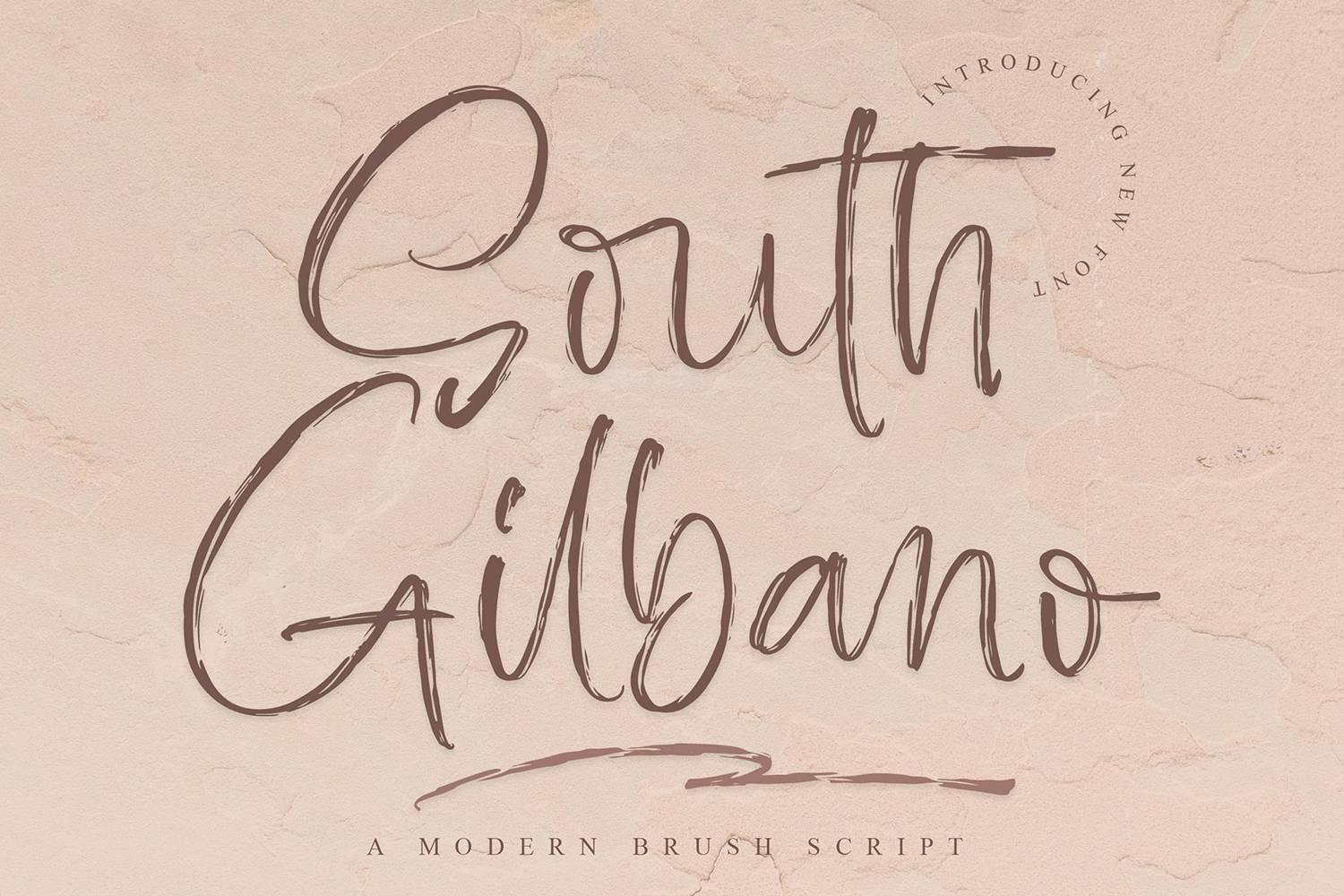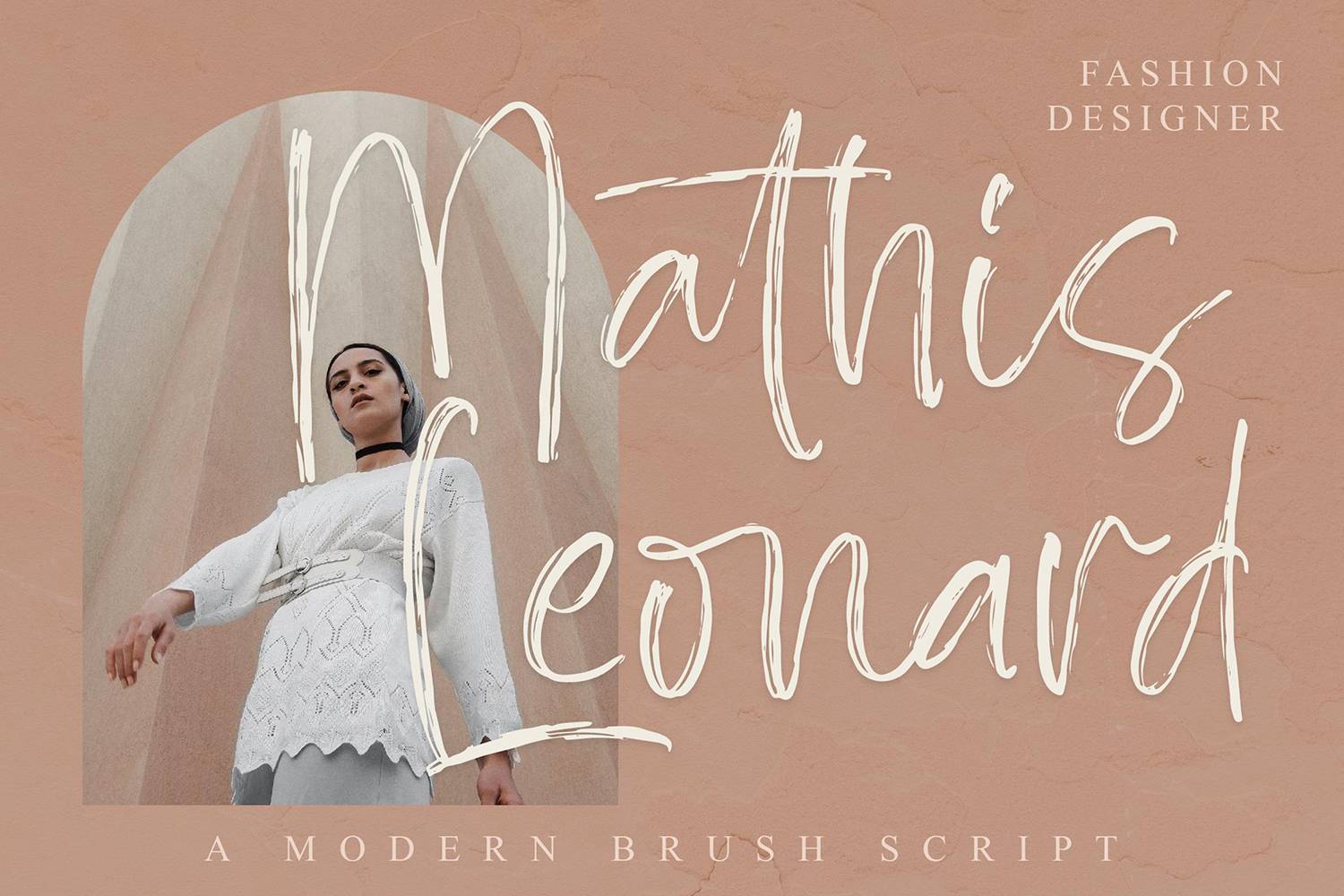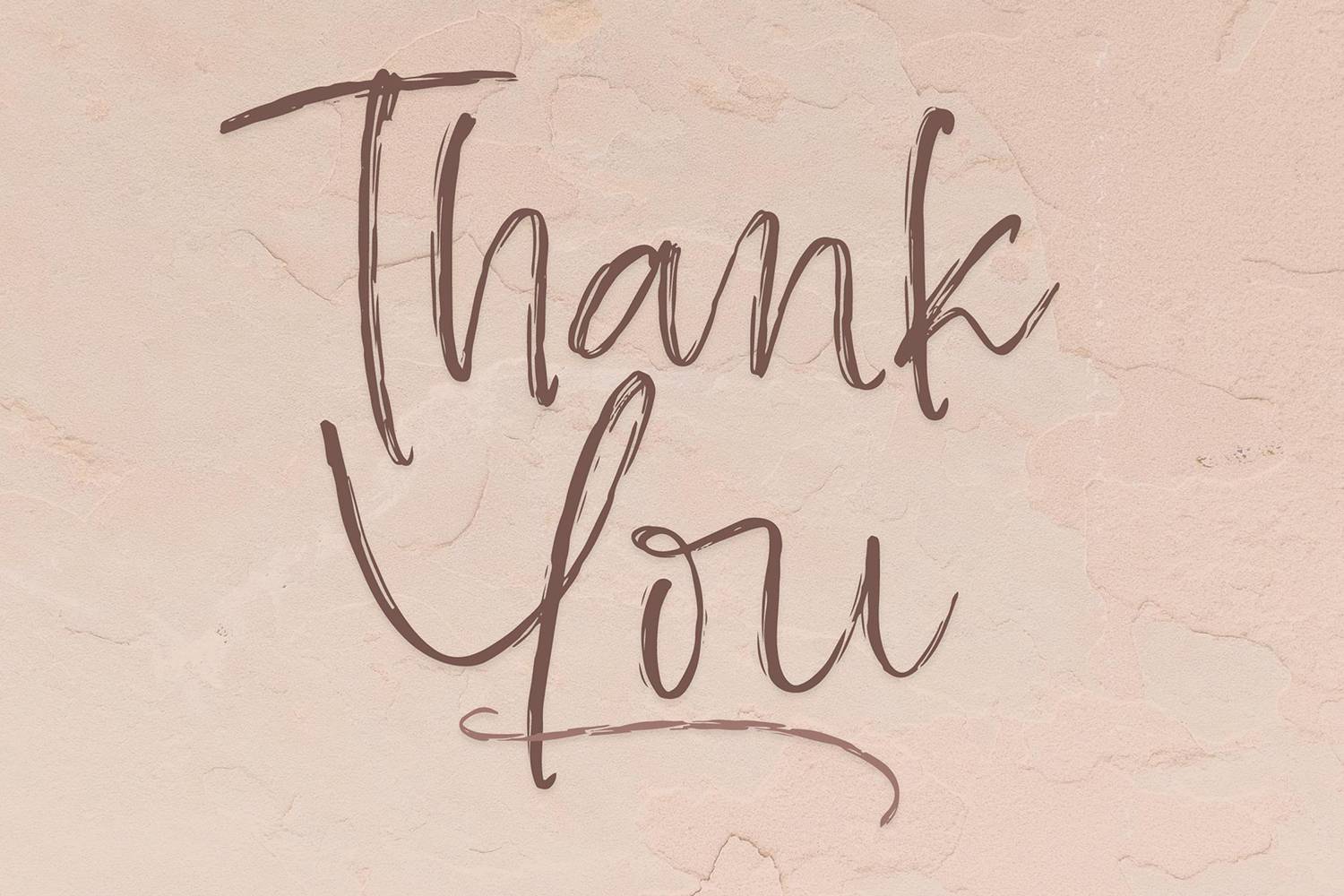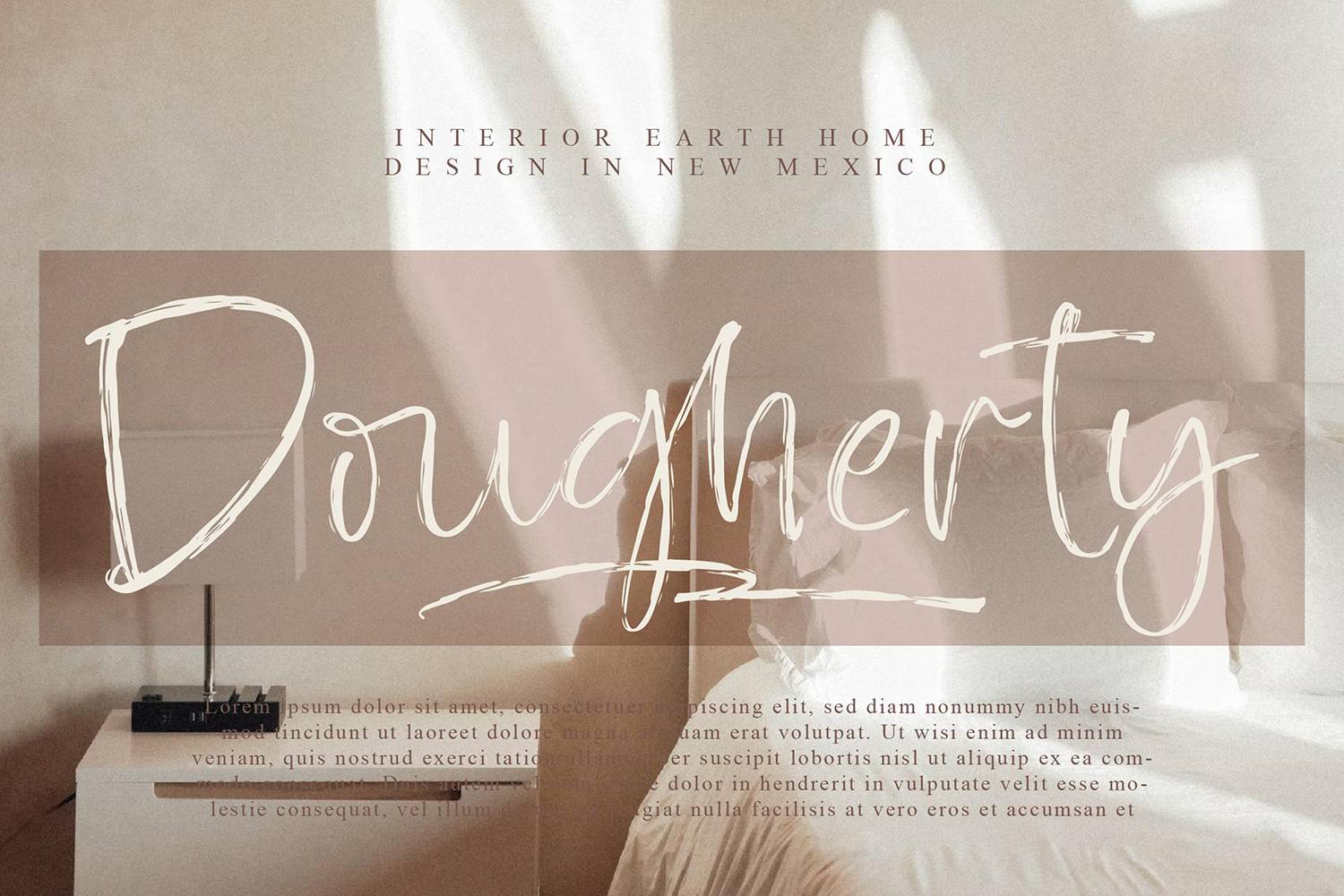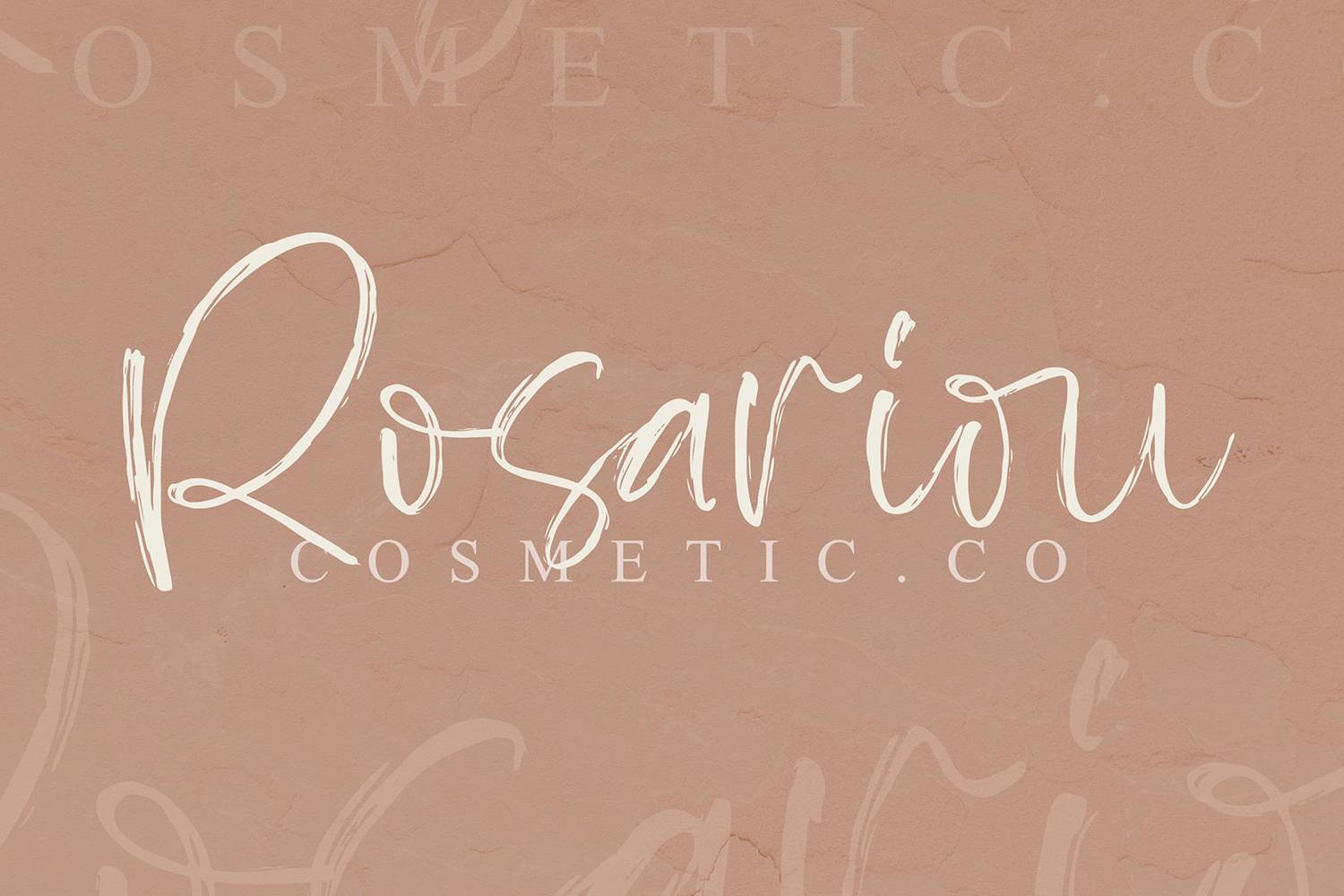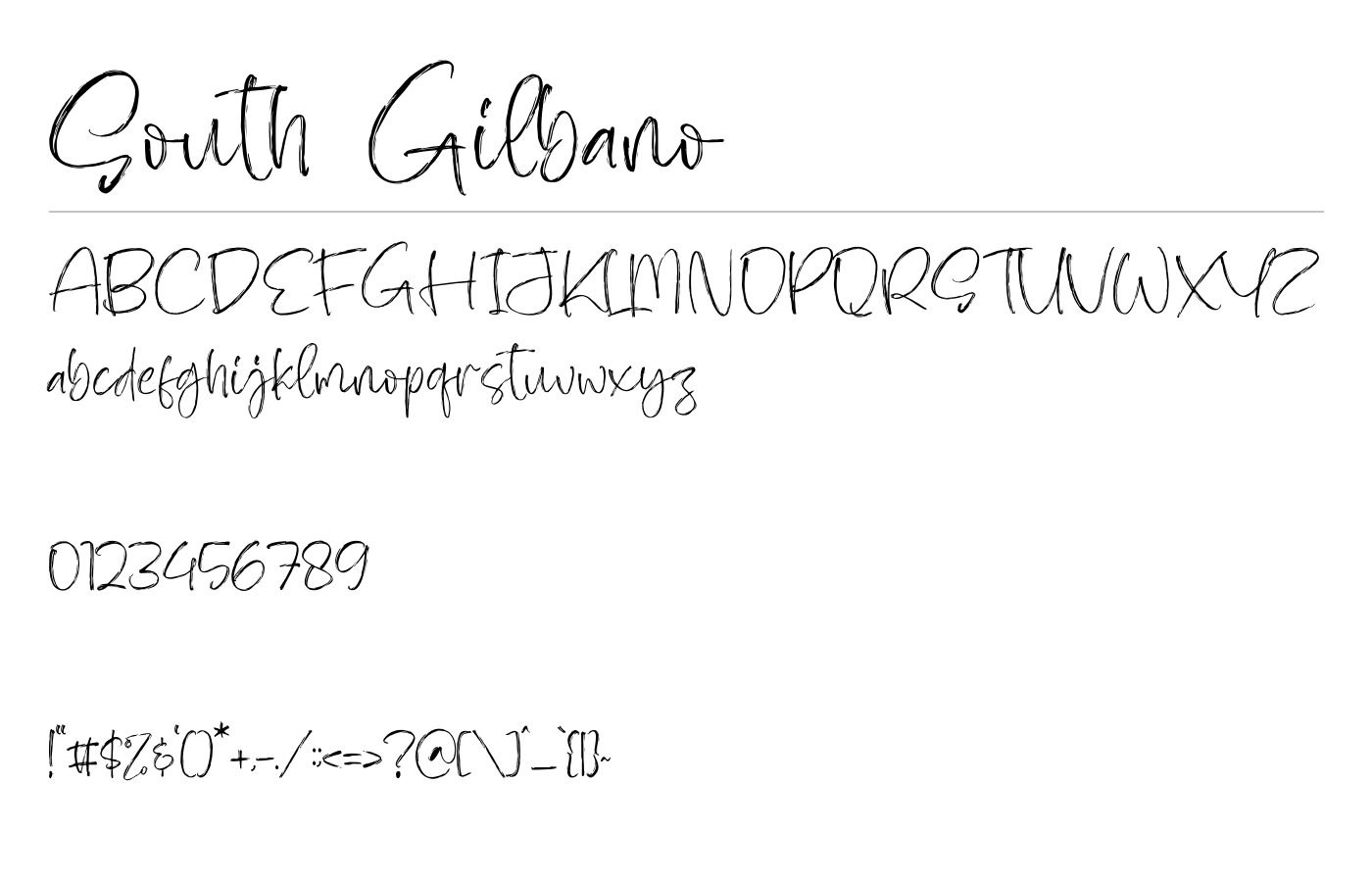
South Gilbano is a delicate, handwritten script font with a light, airy feel and playful irregularity that mimics natural pen strokes. Its thin, flowing lines and whimsical letterforms convey a casual, creative personality perfect for artistic branding, personalized stationery, and stylish invitations. This font shines in designs that seek a handcrafted, intimate touch without sacrificing elegance or readability.
South Gilbano Font
About South Gilbano Font